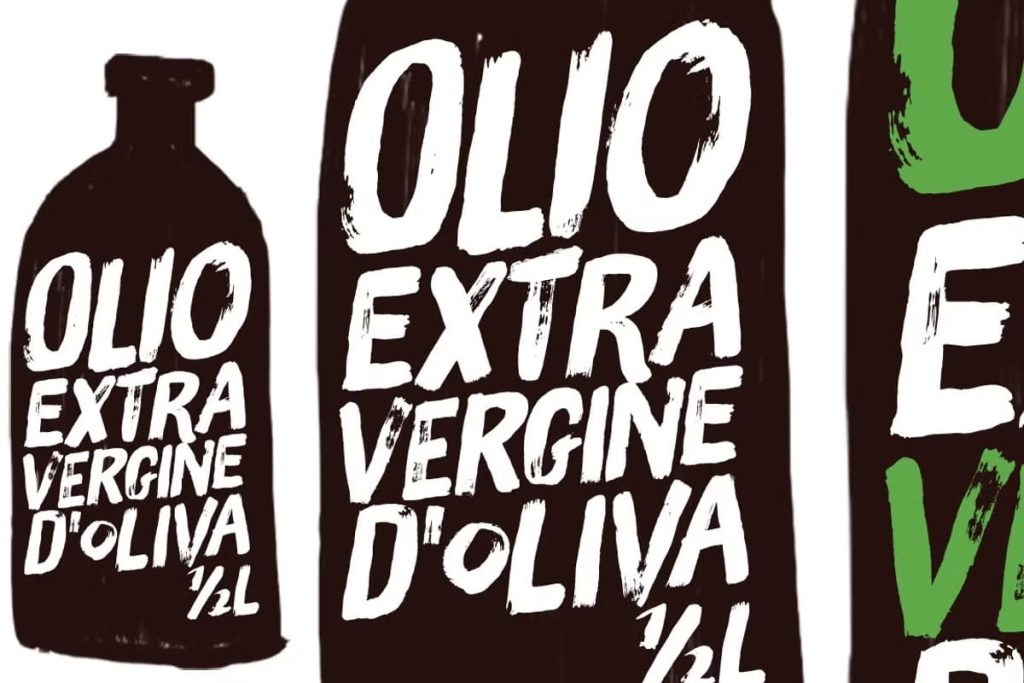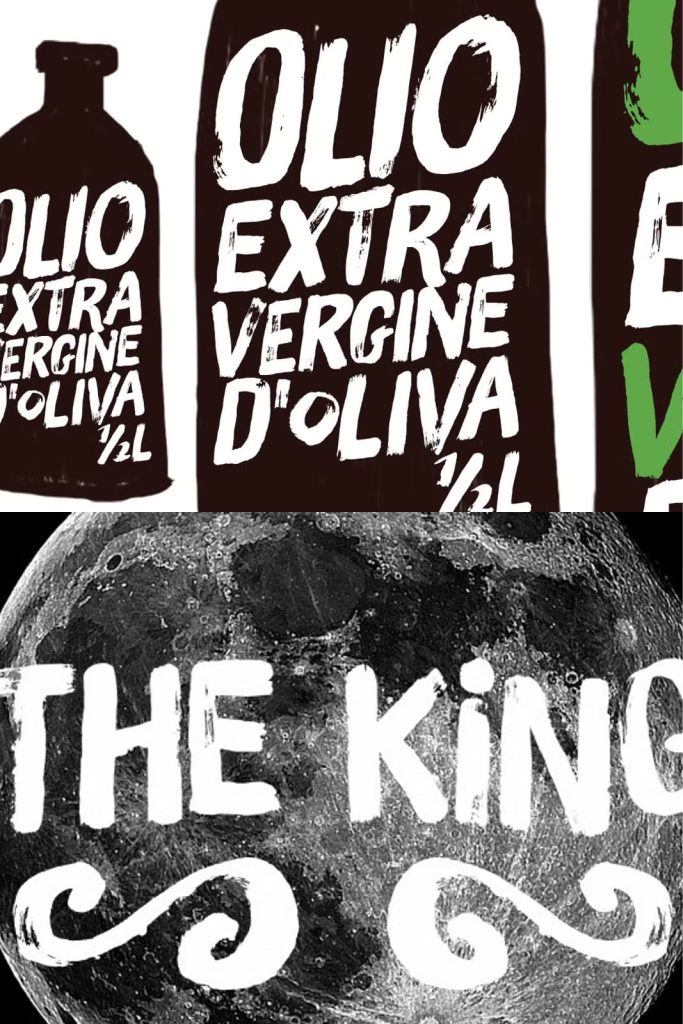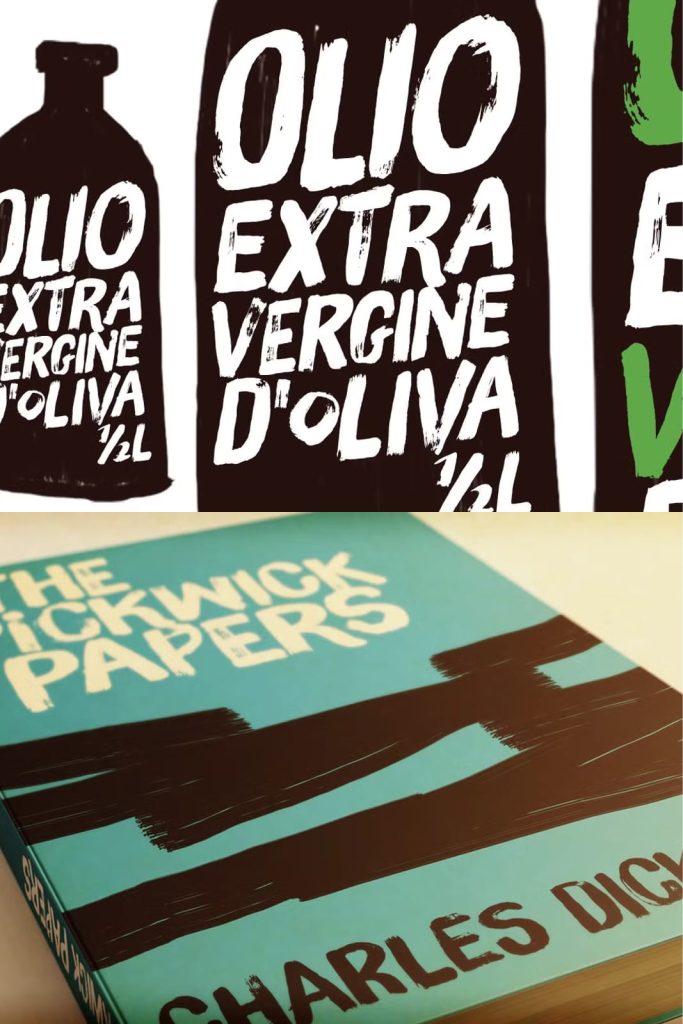
Brush Up is the cool handpainted typeface you are looking for. Swiftly painted on paper and carefully translated into a font, it brings 3 glyphs for each letter and 2 for each number, plus variations for some punctuation marks.
The font is cleverly programmed to automatically cycle these alternate glyphs when Contextual Alternates engines of applications are turned on. Or, you can always pick up your choices manually through a glyphs palette. Either way it will certainly turn out refreshing!